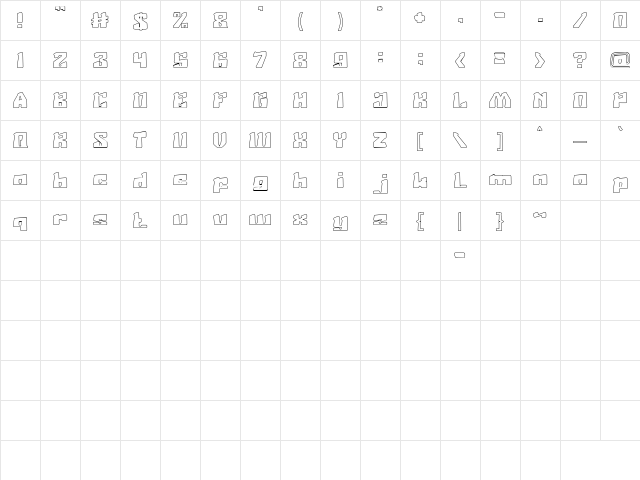
Age Of Science and Technology-H Regular
Design Context for Age Of Science and Technology-H Typeface
Age Of Science and Technology-H has a distinctly futuristic character, with geometric precision and clean angles that feel at home in technology, gaming, and sci-fi contexts.
Pro Tip: Try Age Of Science and Technology-H with generous letter-spacing in UI labels and navigation — the geometric forms benefit from room to breathe.